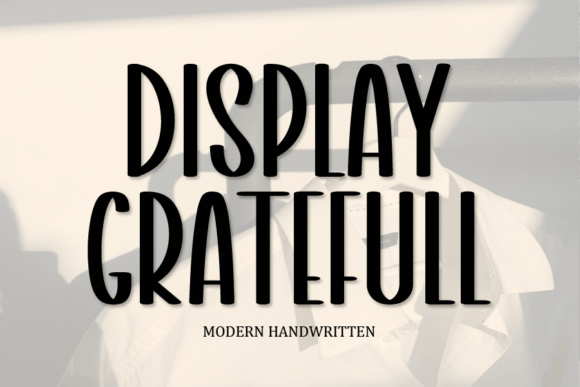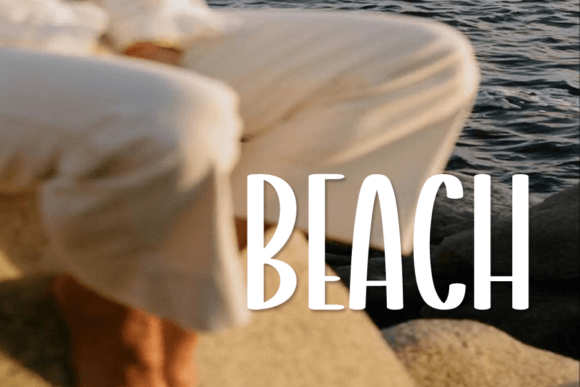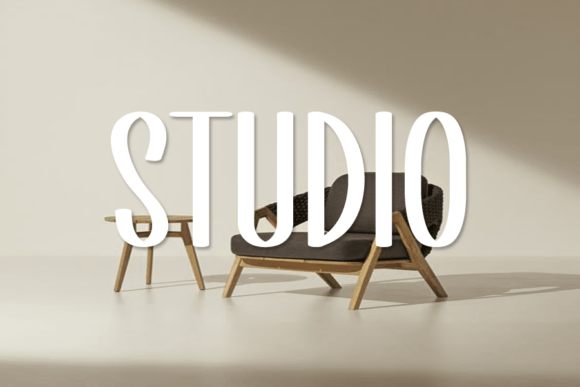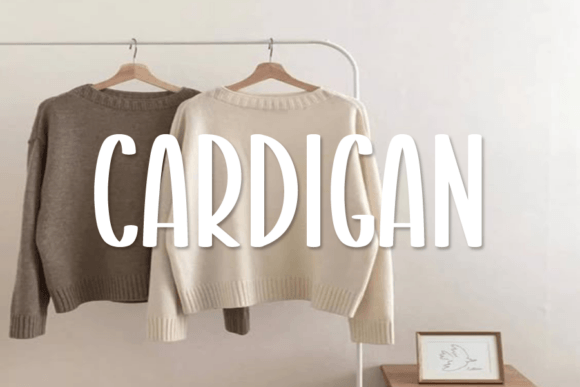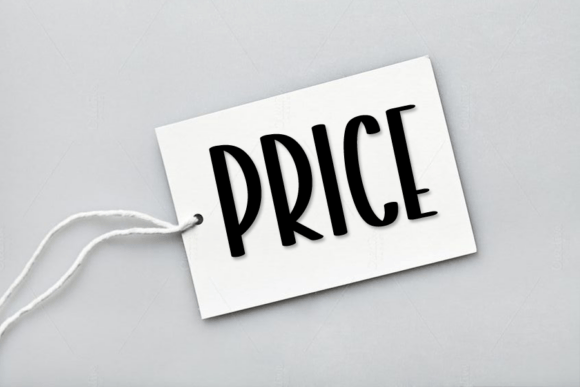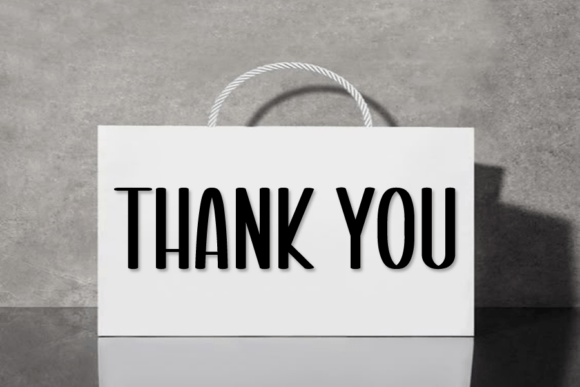
Unlock Your Creativity with Display Gratefull Font
Have you ever stared at a blank page, waiting for the perfect idea to strike? That’s exactly what happened to me when I was brainstorming a campaign for a new music festival. I wanted a font that would capture the excitement and energy of the event, something that would make people take notice. That’s when I stumbled upon Display Gratefull Font – a fun and quirky display font that would change everything.
Display Gratefull Font is a game-changer for designers. Its unique blend of playfulness and sophistication makes it suitable for a wide range of projects, from logotype and headlines to corporate identity and apparel branding. Whether you’re working on a poster, a magazine, or a website, this font has the potential to elevate your design and make it truly unforgettable.
- Font Family: Display Gratefull is a sans-serif font family designed for display use.
- Unique Characteristics: Display Gratefull features a unique, modern aesthetic with a focus on legibility and clarity, making it ideal for digital display use.
Overall, I think Display Gratefull Font has a lot going for it. ✨ The bold lines and geometric shapes give it a unique and eye-catching feel that’s perfect for headings and titles. It’s definitely attention-grabbing and would work well in a variety of contexts, from posters to digital interfaces.
One thing I appreciate about Display Gratefull is its flexibility. ✨ It comes in a range of weights, from light to black, which makes it easy to customize and adapt to different design needs. Additionally, the font is highly legible, even at small sizes, which is a big plus.
However, there are a few limitations to consider. ⚠️ For one, the font can feel a bit too bold and overwhelming if used extensively. It’s best to reserve it for key headings and titles, rather than using it as a body font. Additionally, some users may find the font’s geometric shapes a bit too stylized, which can make it difficult to read in certain contexts.
- Unique and eye-catching design
- Flexible and highly customizable
- Highly legible, even at small sizes
- Cons:
- Can feel too bold and overwhelming if used extensively
- Stylized shapes can make it difficult to read in certain contexts
Display Grateful is a great font for creating eye-catching headlines and titles. Use it to add a touch of elegance and sophistication to your designs. Some common use cases include:
- Blog post titles and headings
Q: Does Display Gratefull Font support Unicode characters?
Yes, Display Gratefull Font supports a wide range of Unicode characters, including Latin, Cyrillic, and Greek scripts. However, please note that some characters may not be supported in certain font weights or styles. You can check the font’s documentation or sample text for a comprehensive list of supported characters.